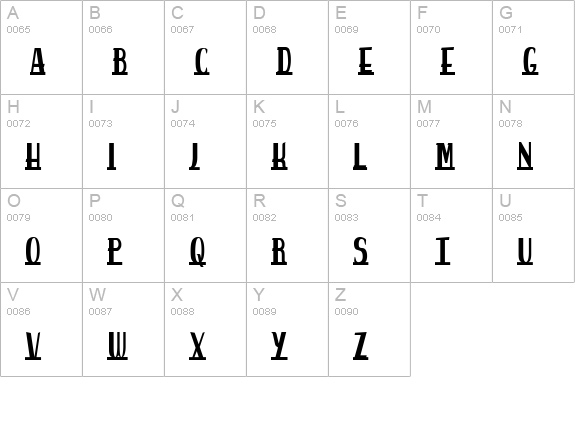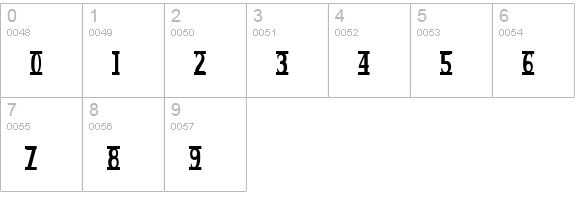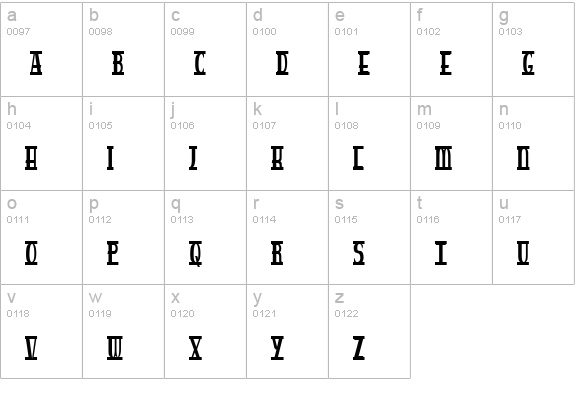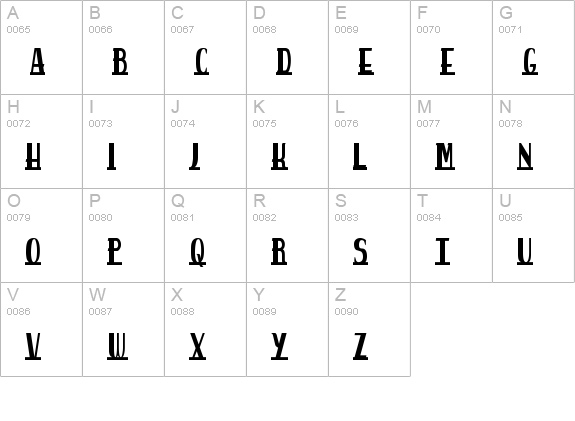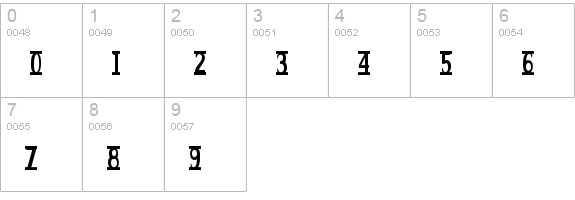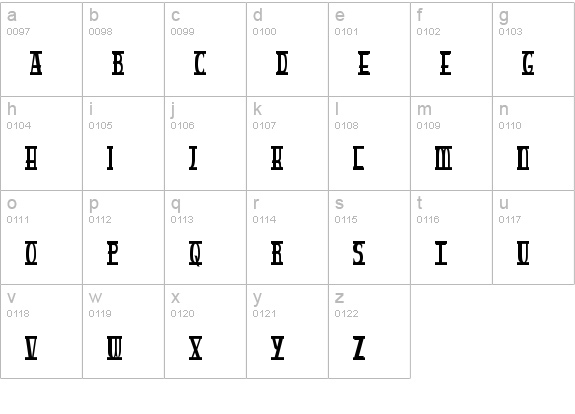
spankys bungalow Font Details
Spankys Bungalow Font is a whimsical and playful typeface that brings a touch of fun and charm to any design project. With its unique and quirky letterforms, this font is perfect for creating eye-catching headlines, logos, and branding materials. The letters are slightly condensed and have a slight slant, giving them a dynamic and energetic appearance. What sets Spankys Bungalow Font apart is that it is freely available to download at FontsMarket.com. Yes, you read that right! This amazing font can be yours for free, allowing you to enhance your designs without breaking the bank. Whether you're a professional designer or a hobbyist, this font offers a fantastic opportunity to add a touch of creativity and originality to your work. The versatility of Spankys Bungalow Font is truly remarkable. It can be used in a variety of design projects, from posters and flyers to social media graphics and website banners. Its bold and distinct style ensures that your message will stand out and capture the attention of your audience. With its extensive character set, Spankys Bungalow Font supports multiple languages, making it suitable for international projects. It also includes a range of special characters and symbols, allowing you to add extra flair and personality to your designs. Downloading Spankys Bungalow Font is a breeze. Simply head over to FontsMarket.com and find this font among their vast collection. Once downloaded, you can start using it right away in your favorite design software, whether it's Adobe Photoshop, Illustrator, or any other program that supports OpenType fonts. So, what are you waiting for? Embrace the playful spirit of Spankys Bungalow Font and bring your designs to life with its unique and captivating letterforms. And remember, it's all for free at FontsMarket.com!